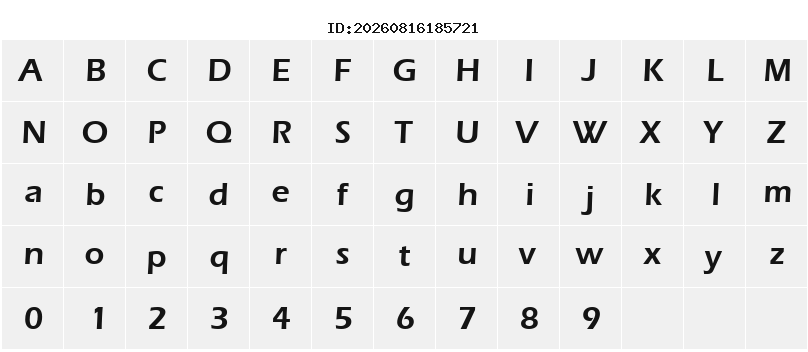
Speedo SSi Preview
• Font Name: Speedo SSi
• Font Style: Semi Bold
• Full Font Name: Speedo SSi Semi Bold
About Speedo SSi.ttf
Speedo SSi.ttf is a modern, elegant sans-serif font designed for ultimate readability and visual harmony. Perfect for branding, headlines, web design, and print materials.